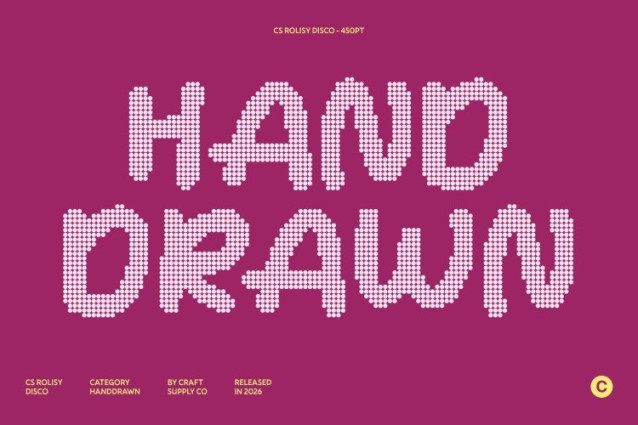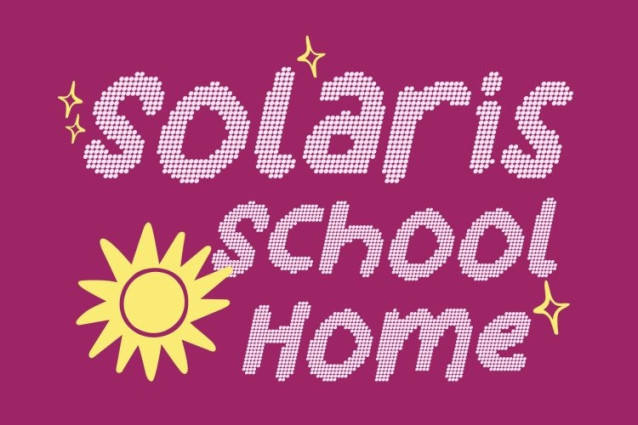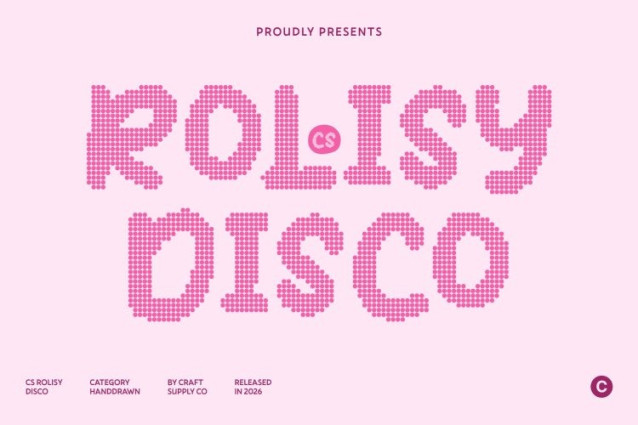
CS Rolisy Disco Font
CS Rolisy Disco Font – This transforms the playful modern display font into a vibrant dotted style inspired by the glowing lights and joyful rhythm of the disco era. Each character is constructed from small circular dots, creating a sparkling texture that instantly adds excitement and movement. The dotted treatment enhances the font’s cheerful personality while giving it a festive, eye-catching presence.
Clean Structure with Rhythmic Dot Patterns
The balanced letterforms and modern structure remain at the core of the design, ensuring clarity and readability. The dotted construction introduces a lively rhythm that feels reminiscent of illuminated dance floors and retro party lights. This combination maintains the font’s clean design while adding a dynamic and energetic visual layer.
Handwritten Charm with Playful Party Vibes
The subtle handwritten influence of the original design shines through in the dotted version, giving the font a friendly and approachable character. The dots amplify the playful spirit, turning each letter into a lively composition that feels expressive, fun, and full of personality.
Perfect for Creative, Cheerful, and Modern Designs
This font works beautifully in posters, branding, packaging, social media graphics, editorial layouts, and event visuals. Its joyful dotted texture and expressive style make it ideal for projects that aim to feel modern, vibrant, and full of life.